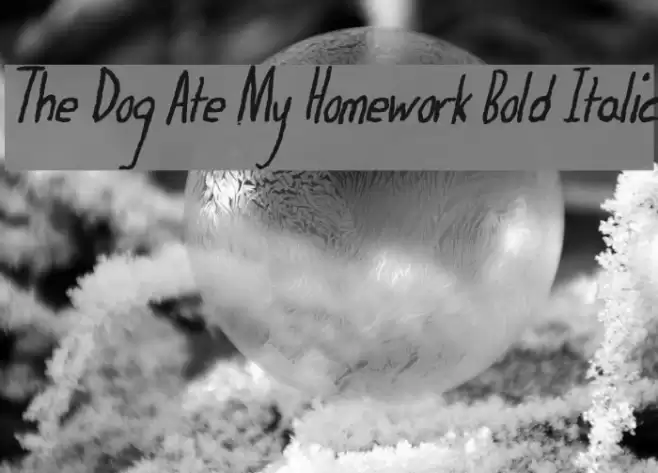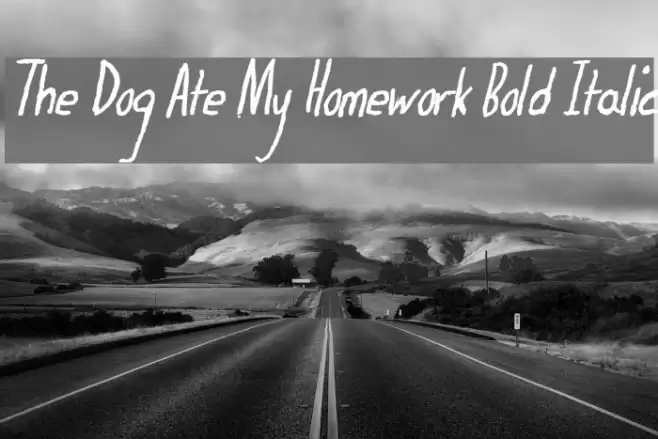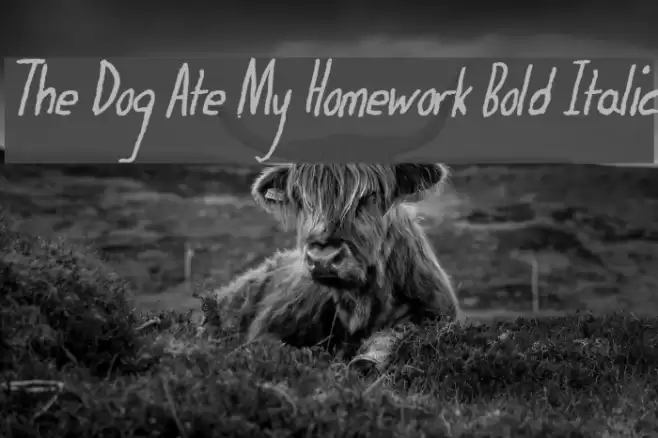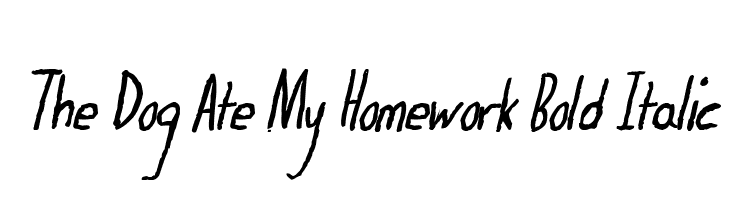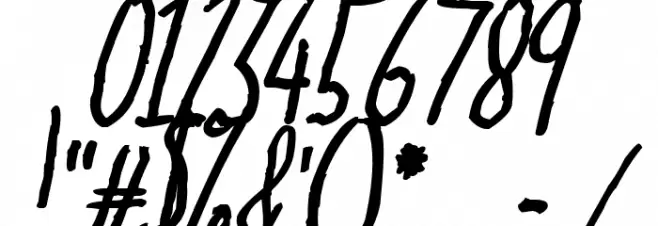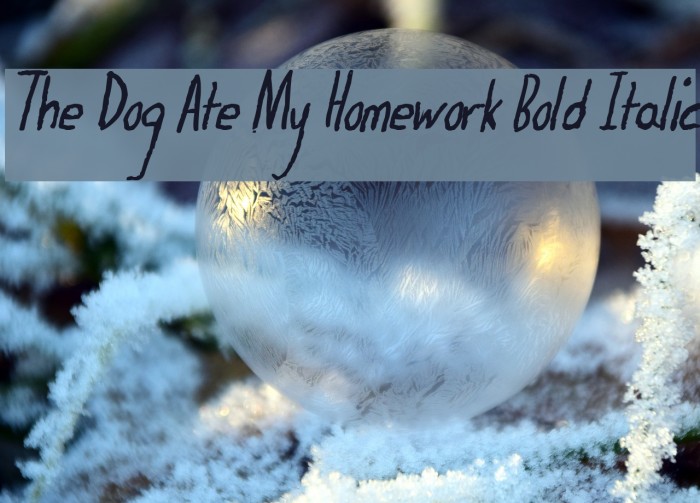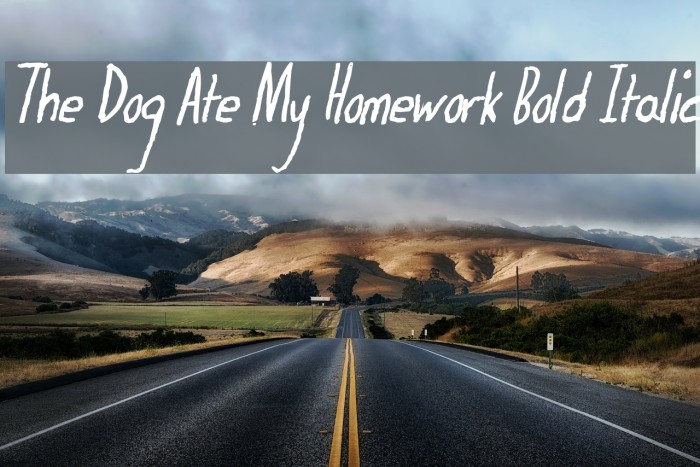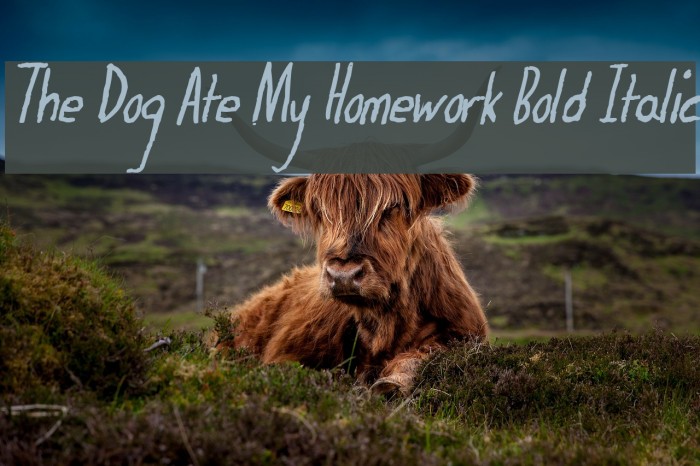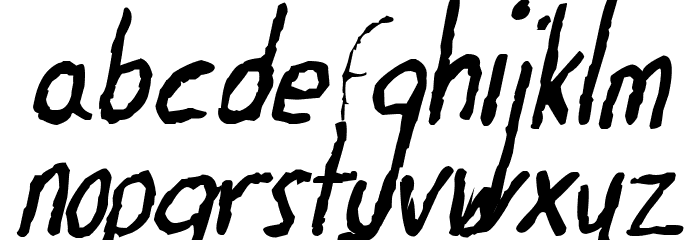
The Dog Ate My Homework Bold Italic Font
The Dog Ate My Homework Bold Italic Description
This playful and energetic font features a bold and italicized style that mimics the appearance of hurried, handwritten text. The letters are unevenly spaced and vary in height, giving it a casual, spontaneous feel. The strokes are thick and slightly irregular, adding to the informal and whimsical nature of the design. This font captures a sense of urgency and creativity, making it ideal for projects that require a fun and dynamic aesthetic. The numbers and special characters maintain the same lively and informal style, ensuring consistency across all text elements.
A bold, italicized, and playful handwritten font with an energetic and informal style from Handwritten fonts.
- Proposed Projects: Ideal for children's book covers, playful posters, informal invitations, and creative branding projects.